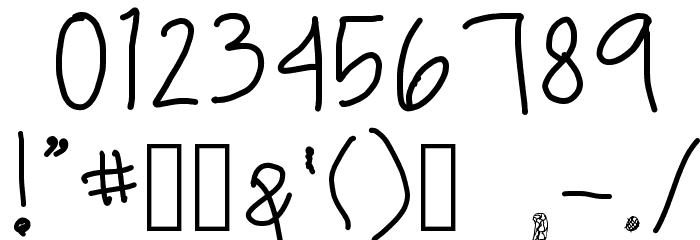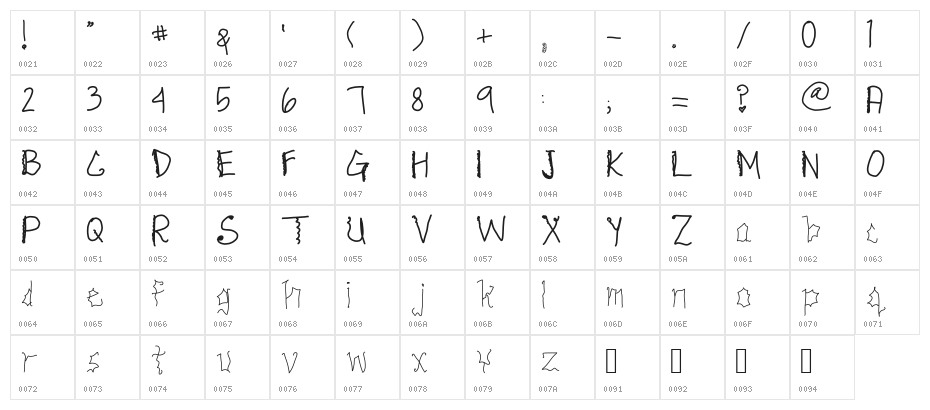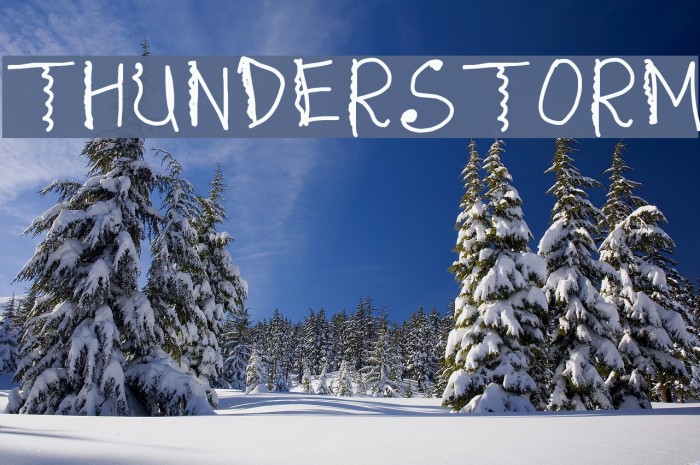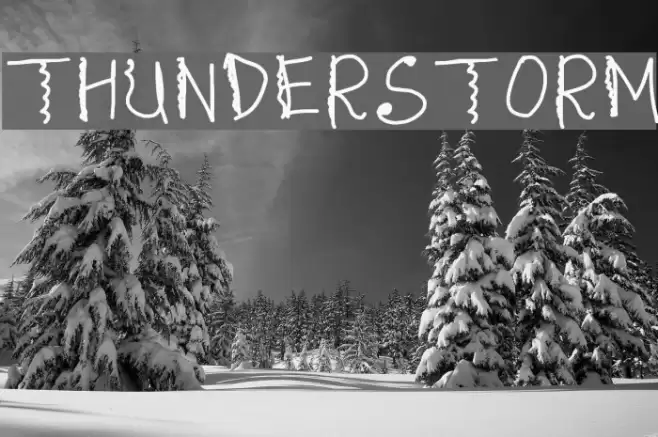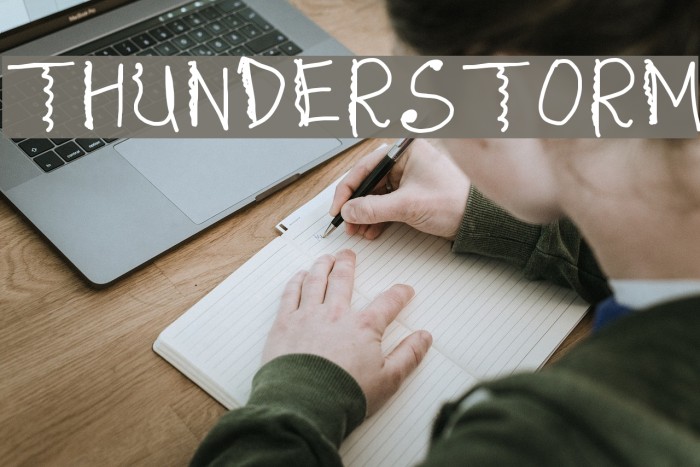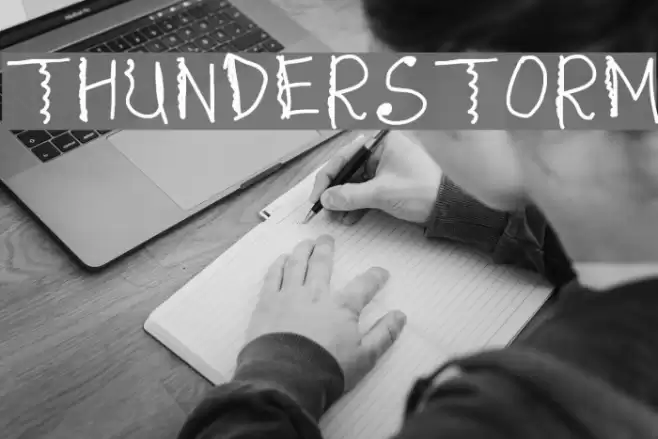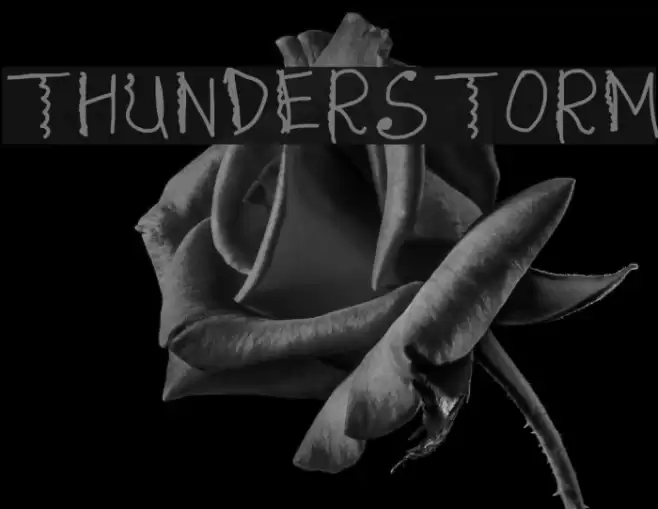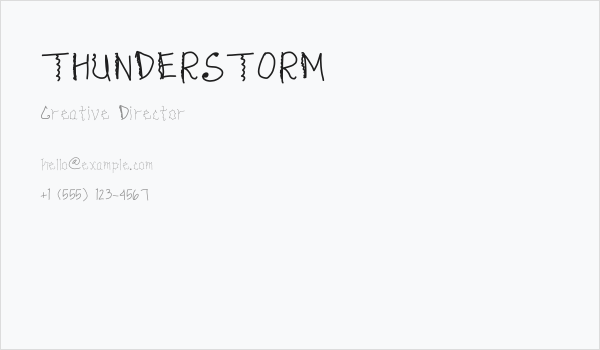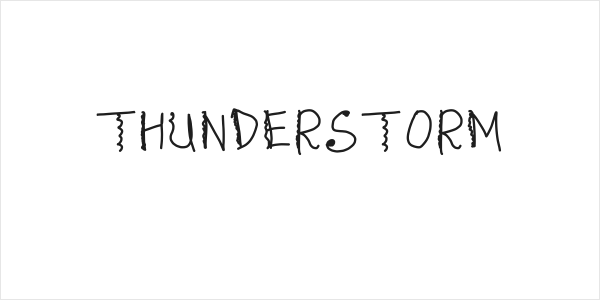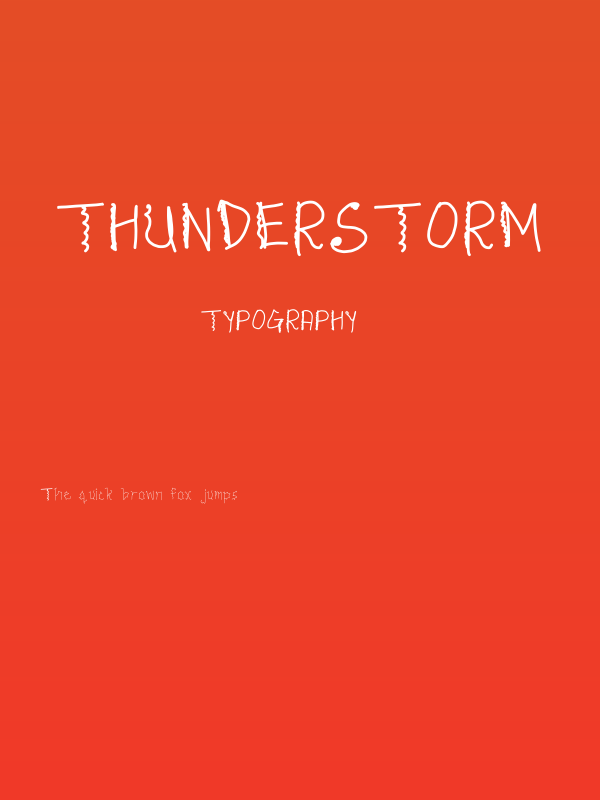
THUNDERSTORM Font
THUNDERSTORM Description
This font features a dynamic and energetic style, reminiscent of a stormy atmosphere. The uppercase letters have a rugged, jagged appearance, while the lowercase letters maintain a more fluid and whimsical form. The numbers are bold and slightly irregular, adding to the overall chaotic yet artistic feel. Special characters are creatively designed, with unique twists and turns that enhance the font's distinctive character. The font's uneven strokes and varying line thickness contribute to its high contrast and expressive nature.